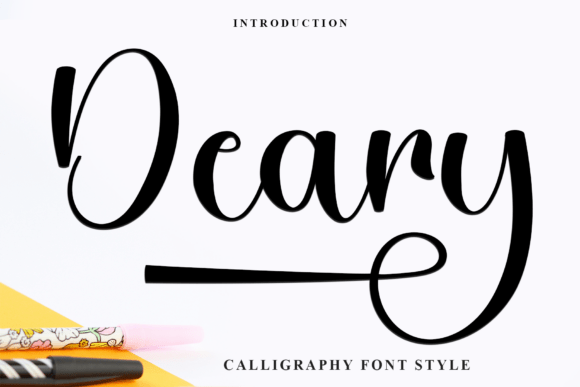
Introducing Deary Font: A Unique and Versatile Typeface for Creative Projects
In the world of typography, a good font can make all the difference in the success of a design project. For designers, crafters, and creative enthusiasts, finding the perfect font that combines aesthetic appeal with versatility is a constant quest. This is where Deary Font comes in – a beautiful and eye-catching typeface that is sure to elevate your designs to the next level.
The Distinctive Charm of Deary Font
Deary Font is designed with a soft, unique touch that sets it apart from more traditional fonts. Its distinctive strokes give it a special character, making it not only visually appealing but also meaningful and versatile for future use. Whether you’re working on a design project, crafting a handmade card, or creating digital content, Deary Font’s charm is sure to captivate your audience.
Key Features of Deary Font
- Unique and Eye-Catching Design: Deary Font boasts a one-of-a-kind design that will add a touch of personality to your projects.
- Versatile and Meaningful: Its distinctive strokes make it perfect for a wide range of applications, from artistic and creative projects to commercial and personal use.
- Variety of Characters: Deary Font comes with a range of characters, ensuring that you have plenty of options to choose from for your designs.
Deary Font is specifically designed to meet the needs of designers and crafters. Its natural font style and unique touch make it ideal for a wide range of products, including:
- Digital and Print Designs: Use Deary Font to create stunning visual content for social media, blogs, and marketing materials.
- Handmade Crafts: Add a personal touch to your handmade cards, scrapbooking, and other craft projects with this beautiful font.
- Artistic and Creative Works: Deary Font is perfect for artists, illustrators, and writers looking to add a unique touch to their work.
By incorporating Deary Font into your design projects and crafts, you can:
- Enhance Your Designs: Deary Font’s unique and eye-catching design will make your projects stand out and grab attention.
- Appeal to a Wide Audience: The natural and versatile design of Deary Font ensures that your projects will appeal to a wide range of audiences across different artistic and creative fields.
In conclusion, Deary Font is a game-changer for designers, crafters, and creative enthusiasts. Its unique and eye-catching design, versatility, and compatibility make it the perfect addition to any design project or craft. With Deary Font, you can elevate your designs, add a personal touch to your crafts, and appeal to a wide audience. So why wait? Discover the charm of Deary Font and take your creative projects to new heights.